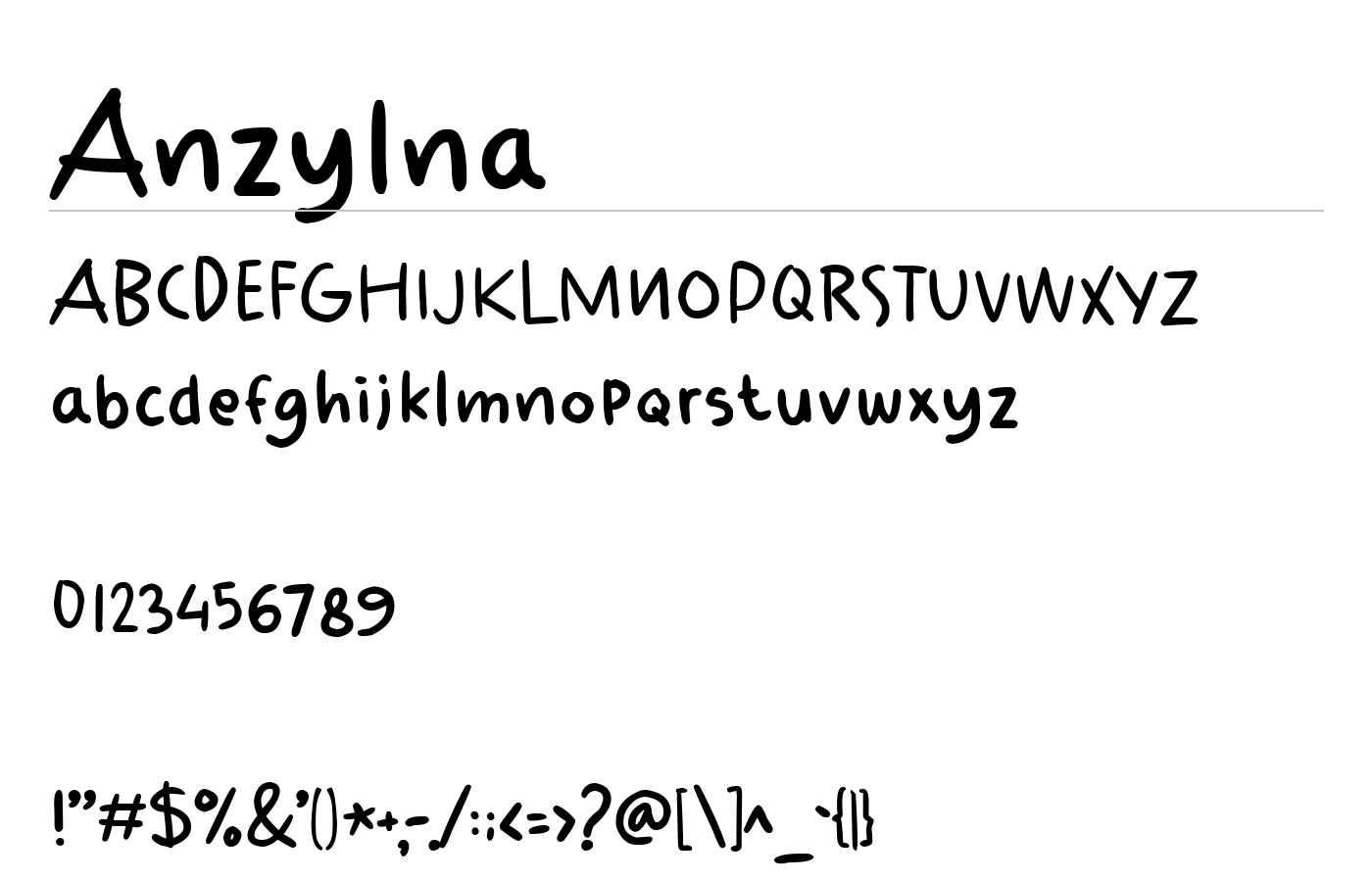
Anzylna is a casual, handwritten sans-serif font that exudes a friendly and approachable vibe with its slightly uneven strokes and playful character shapes. Its moderate x-height and clean design make it highly readable while maintaining a warm, informal feel, ideal for creative projects, children's materials, or personal branding. This font works well for logos, social media graphics, and invitations where a charming, human touch is desired.
Anzylna Font
About Anzylna Font